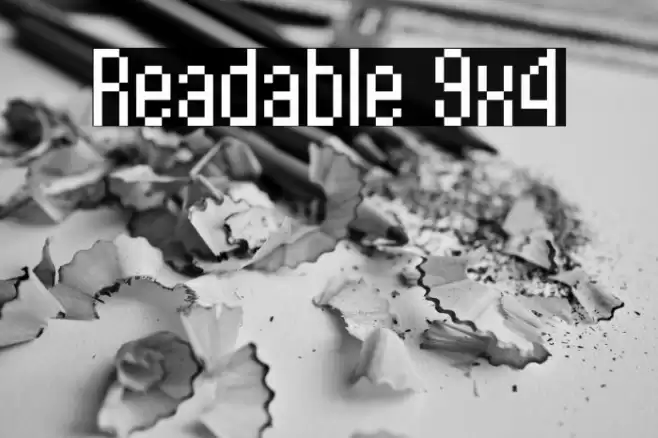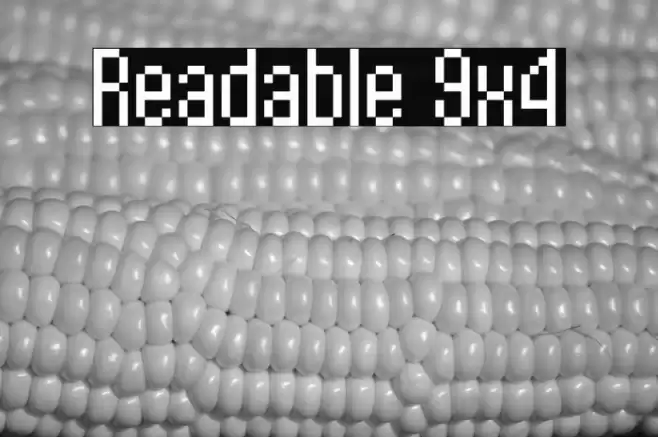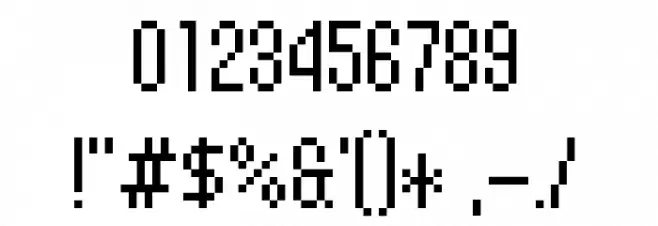
Readable 9x4 Font
Readable 9x4 Description
This font features a pixelated, monospaced design reminiscent of early digital displays and retro video games. Each character is constructed with a grid-like precision, giving it a distinctly blocky appearance. The uniformity in width and height across all characters ensures a consistent and orderly presentation. The uppercase and lowercase letters maintain a similar structure, with slight variations to distinguish them. Numbers and special characters follow the same pixelated style, ensuring a cohesive look throughout. This font's simplicity and clarity make it ideal for digital interfaces or projects that aim to evoke a sense of nostalgia.
A pixelated, monospaced font with a retro digital aesthetic from Regular fonts.
- Proposed Projects: Ideal for retro video game design, digital displays, coding environments, and nostalgic-themed projects.
- Overall Style: Retro
- Use Case: Digital displays, Coding, Retro-themed projects